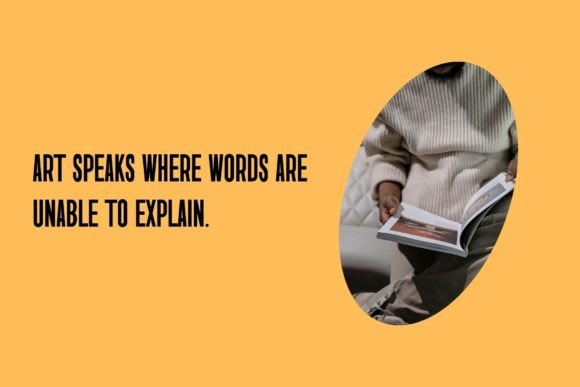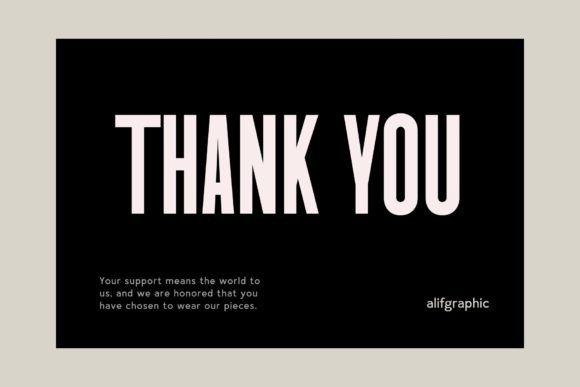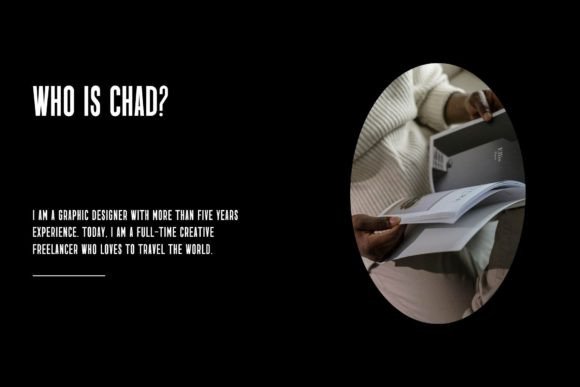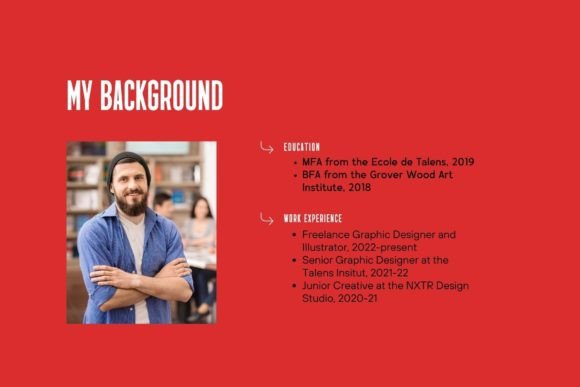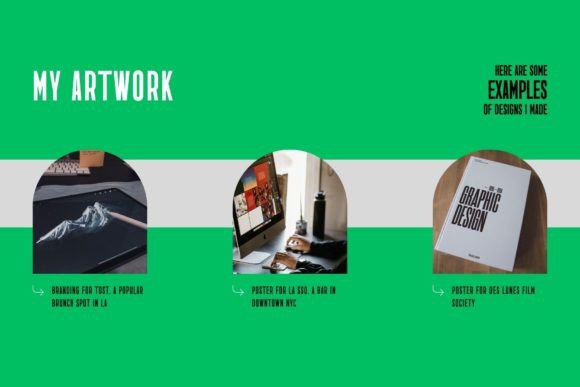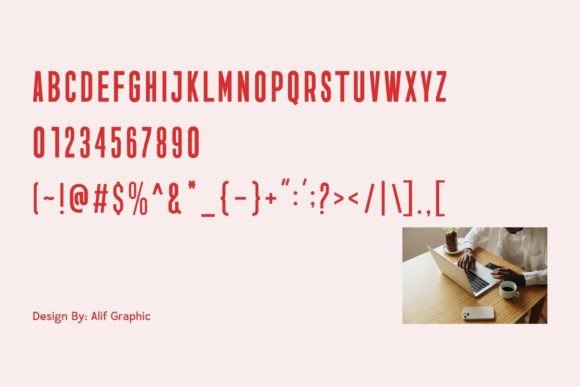
Introducing Casendro: The Ultimate Display Font for Bold Designs
I’ll never forget the time I was working on a project and struggling to find the perfect font. My client wanted something that would make their brand stand out, but I was stuck in a sea of bland, generic options. That’s when I discovered Casendro – a game-changing, condensed all-caps display font that packs a punch with its sleek and modern design.
A Personal Review: What I Love About Casendro
Casendro has quickly become one of my go-to fonts for bold designs. Here’s what I love about it:
- ✨ Sleek and modern design: Casendro’s clean lines and sharp edges create a sophisticated aesthetic that’s perfect for headlines, banners, and any design where impact is key.
- ✅ Perfect balance between boldness and space-saving efficiency: This font is ideal for designers who want to make a statement without sacrificing too much space.
- 🌟 Versatility: Casendro is suitable for various projects, from branding and advertising to packaging and web design.
While Casendro is an excellent font, there are a few things to keep in mind:
- 🤔 Limited use cases for body text: Due to its condensed and all-caps design, Casendro may not be the best choice for body text or long paragraphs.
- ⚠️ Requires careful kerning: As with any font, it’s essential to adjust the kerning to ensure that the text looks balanced and visually appealing.
One of the exciting features of Casendro is its support for OpenType features and glyphs. These features allow you to add more creativity and variety to your design. Here are some tips for using OpenType features and glyphs in Casendro:
- Access the glyph panel in your design software to explore the different glyphs and alternates available in Casendro.
- Use the stylistic alternates to create a more customized look for your design.
- Experiment with different ligatures and swashes to add a touch of elegance to your design.
The Story Behind Casendro
Casendro was designed with the goal of creating a font that would make a bold statement in any design. The designer wanted to create a font that was both modern and sophisticated, with a perfect balance between boldness and space-saving efficiency. The result is a font that’s both versatile and impactful.
- Q: What is Casendro?
- A: Casendro is a condensed all-caps display font designed for bold and impactful designs.
- Q: Is Casendro suitable for body text?
- A: While Casendro is a beautiful font, it’s not ideal for body text due to its condensed and all-caps design. It’s best used for headlines, titles, and other display text.